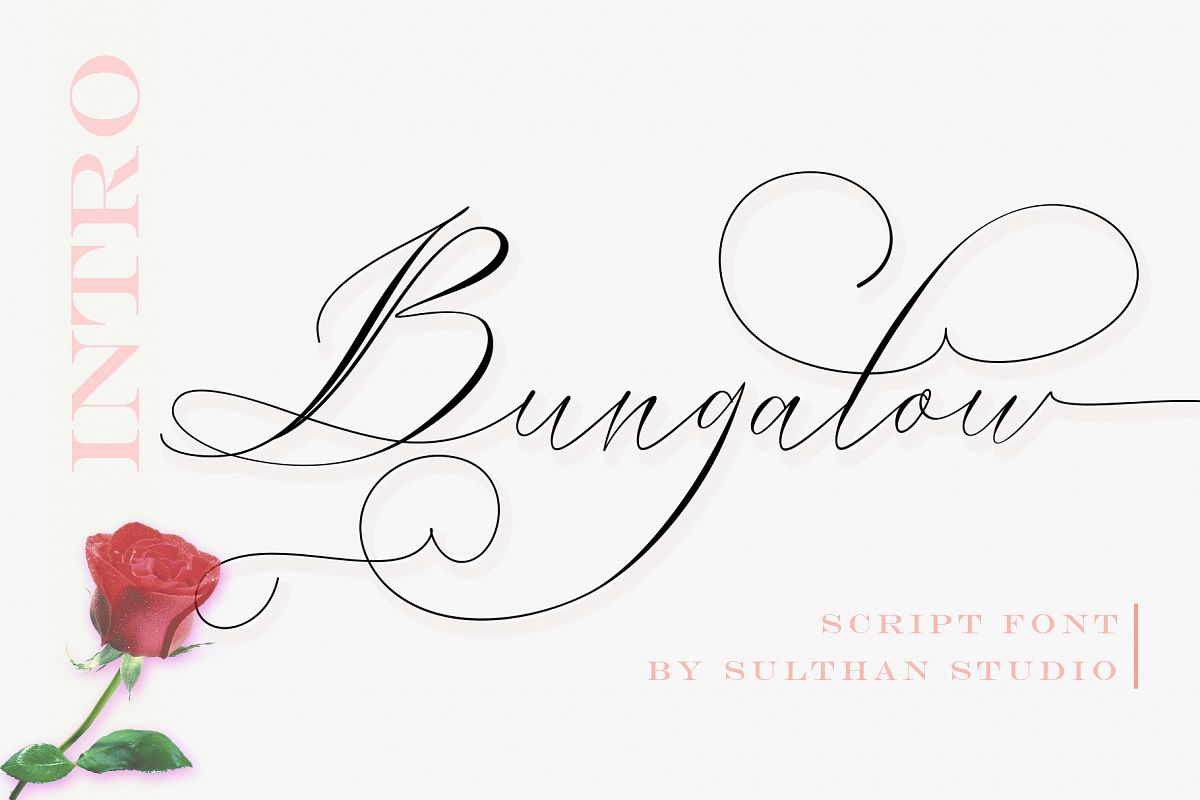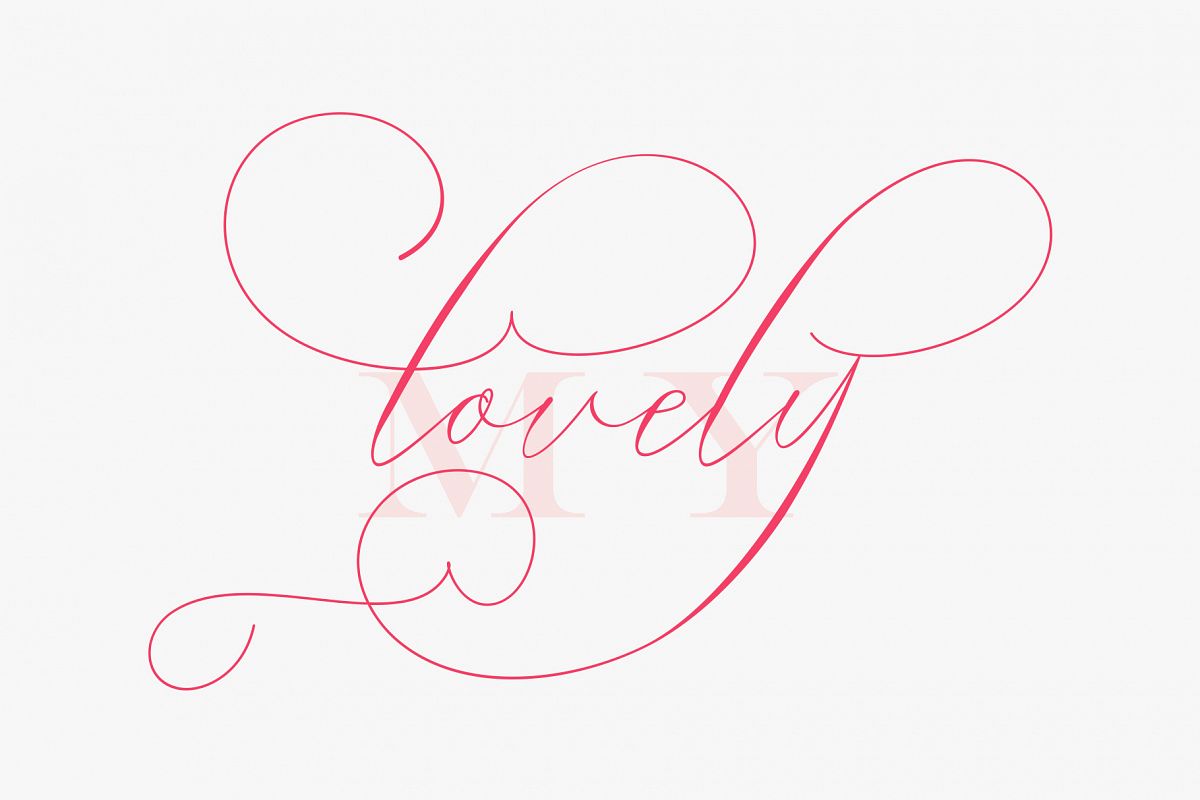
The Bungalow is my handwriting, I wrote it with a feeling of being happy ... and feeling loving.Bungalow was built with OpenType features and includes beginning and ending swashes, numbers, punctuation, alternates, ligatures and it also supports other languages :)swashes are called alternative glyphs.